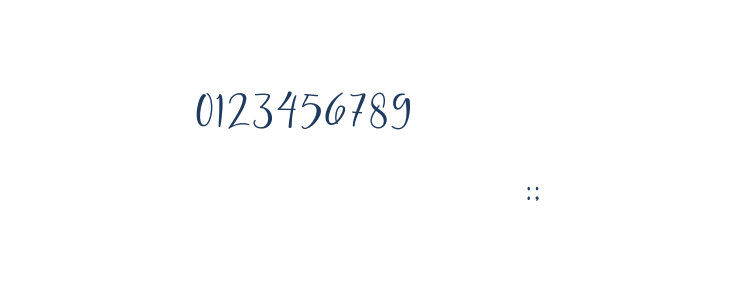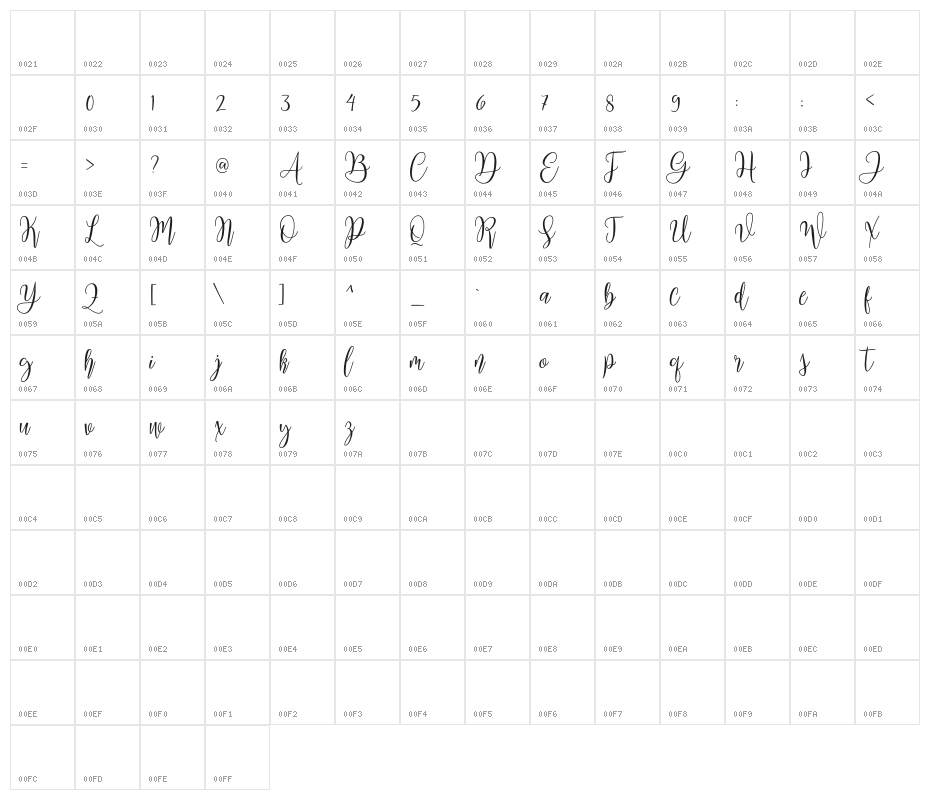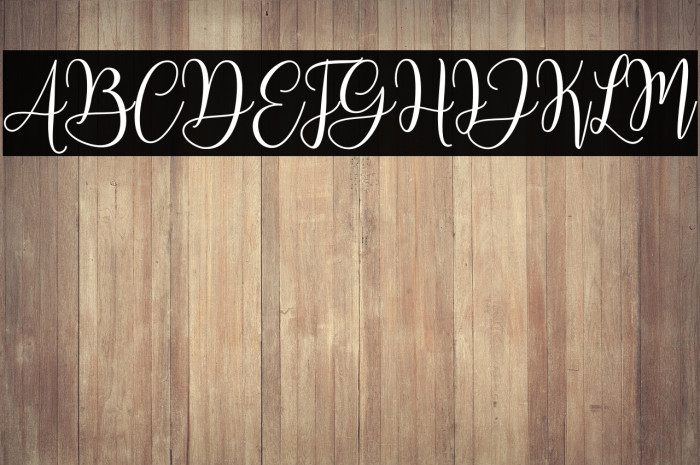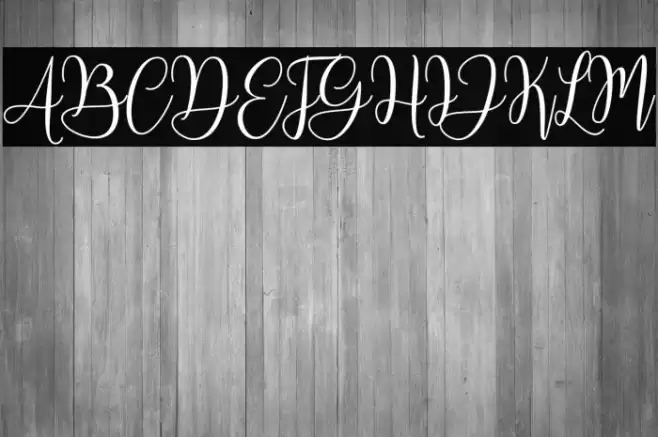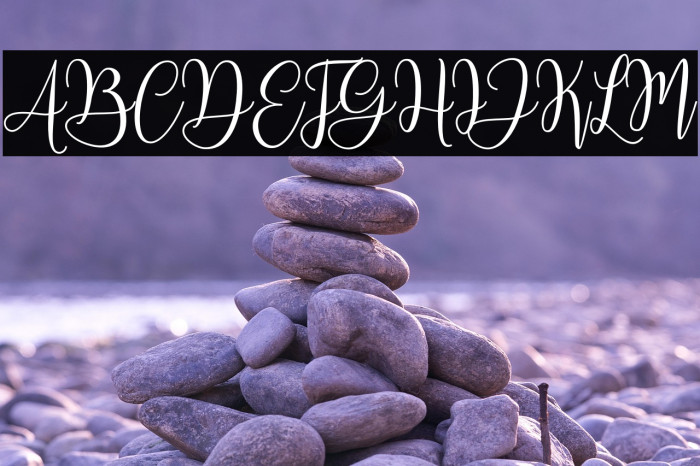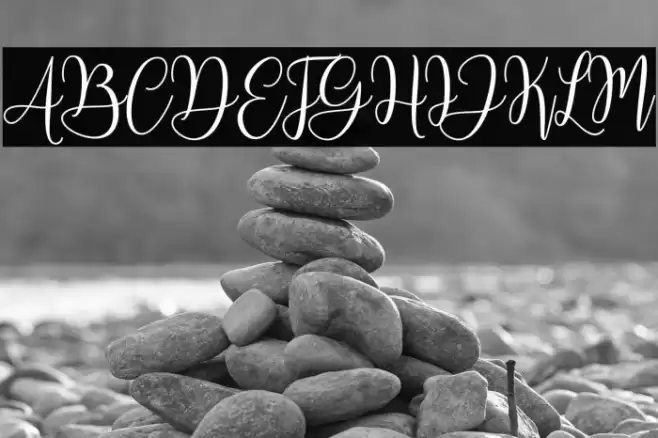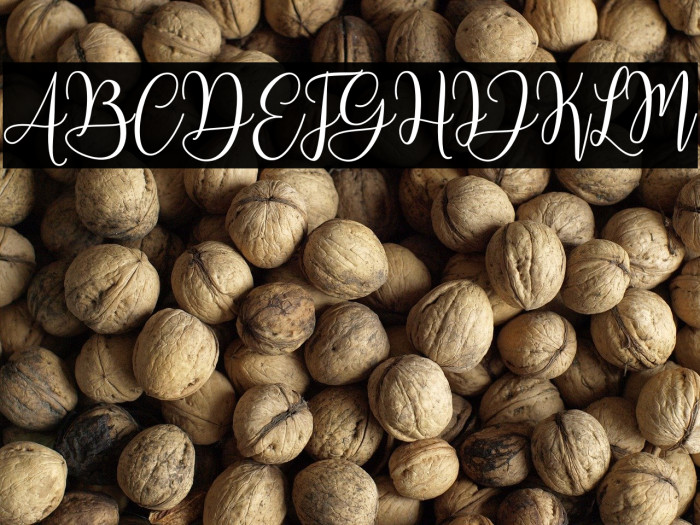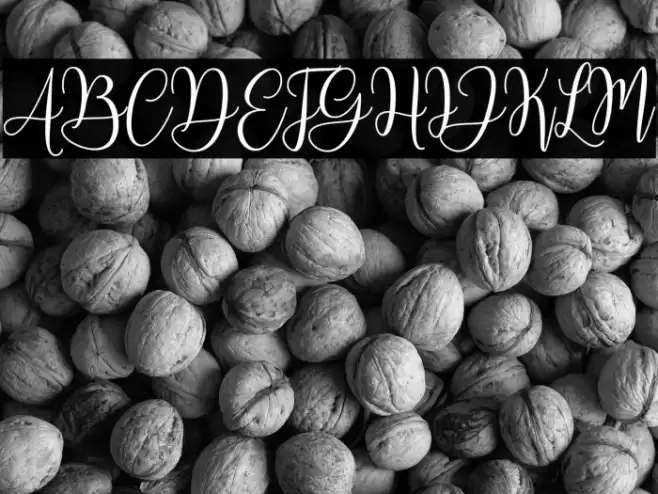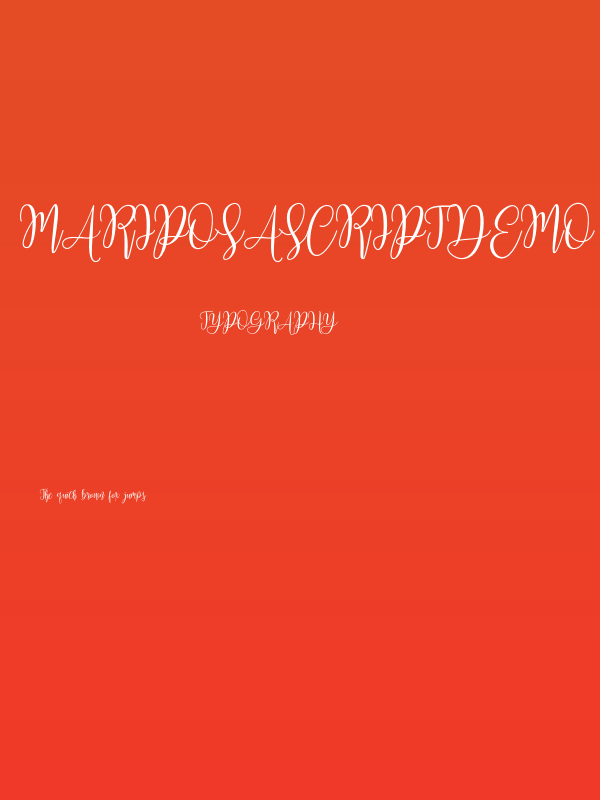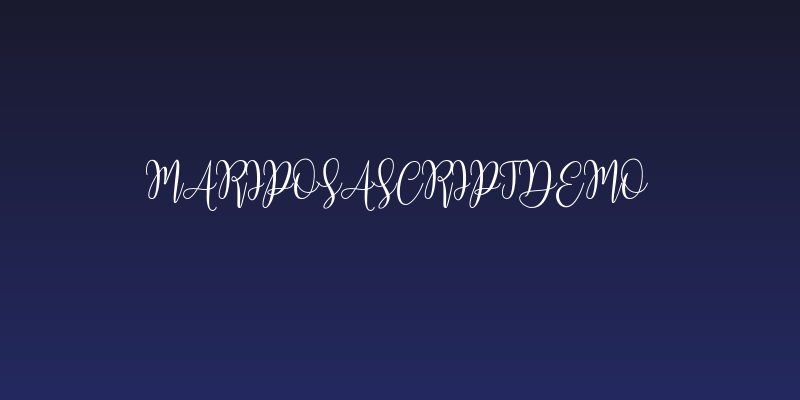
MariposaScriptDemo Font
MariposaScriptDemo Description
This elegant script font features flowing, interconnected letters that exude a sense of grace and sophistication. The uppercase letters are ornate with sweeping curves and loops, while the lowercase letters maintain a consistent fluidity, enhancing readability. The numbers and special characters are crafted with the same attention to detail, making them seamlessly integrate with the alphabet. This font is perfect for adding a personal touch to any project, with its hand-drawn appearance and artistic flair.